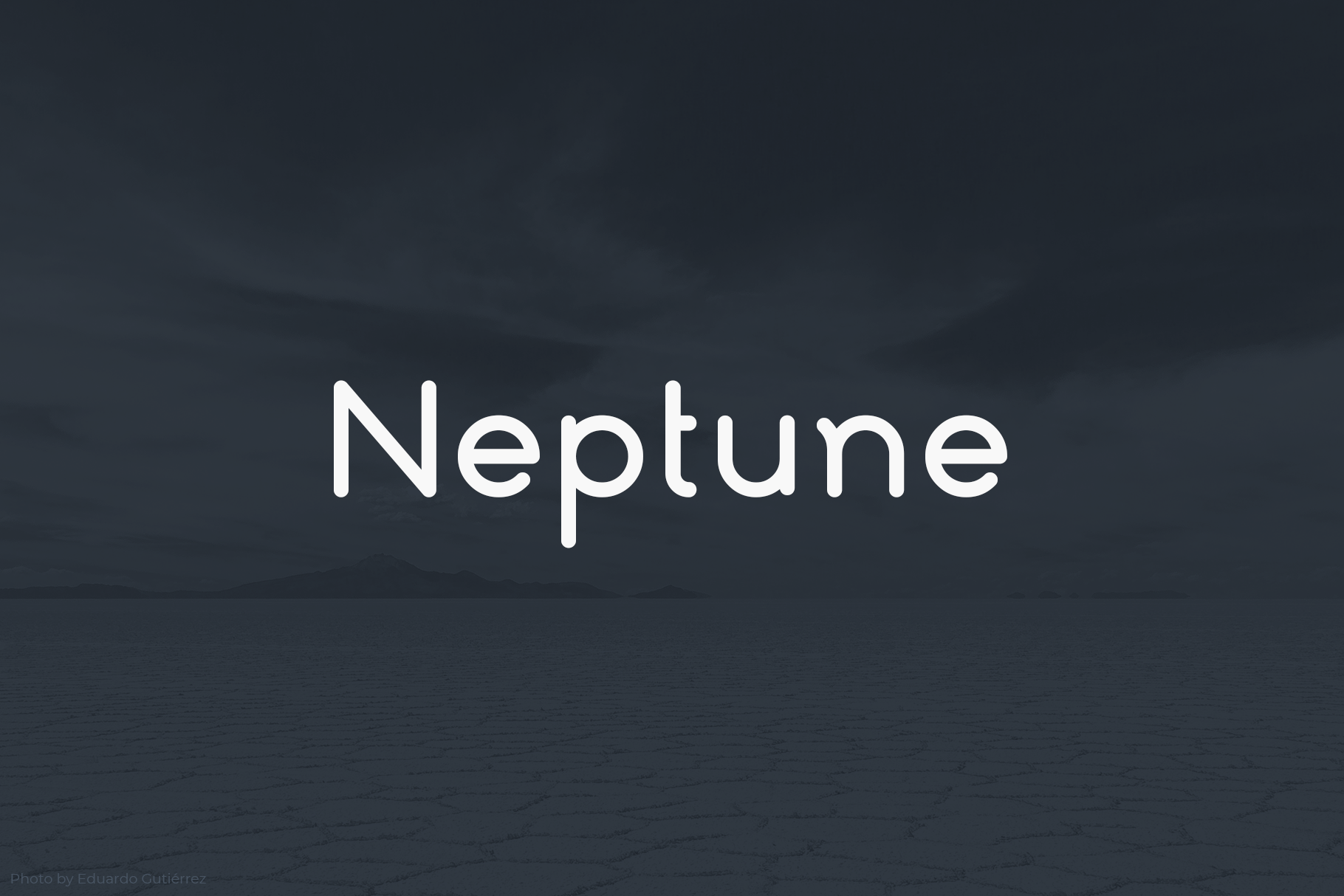
Neptune | A minimalistic font design
Neptune is a roundish, minimalistic, sans serif font design. It's perfect to use for your logo design but fits in every situation. It includes upper- and lowercase letters as well as numbers and some additional characters.